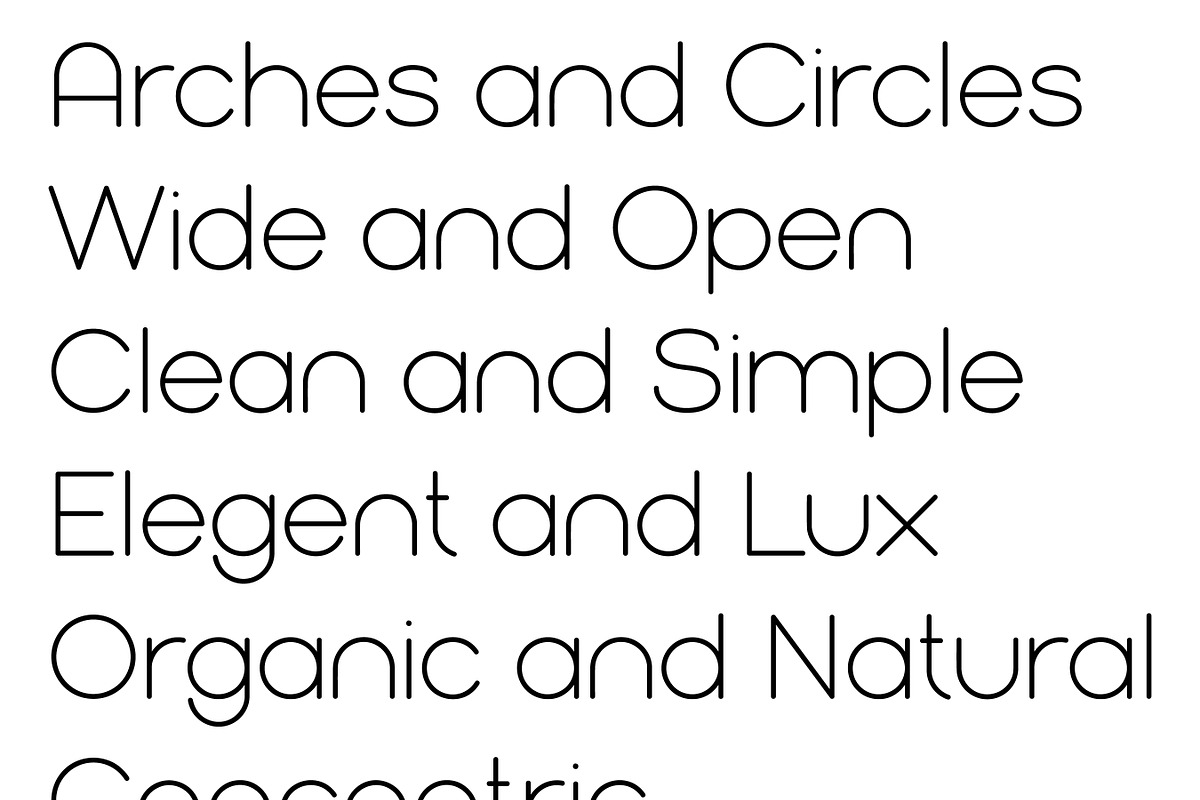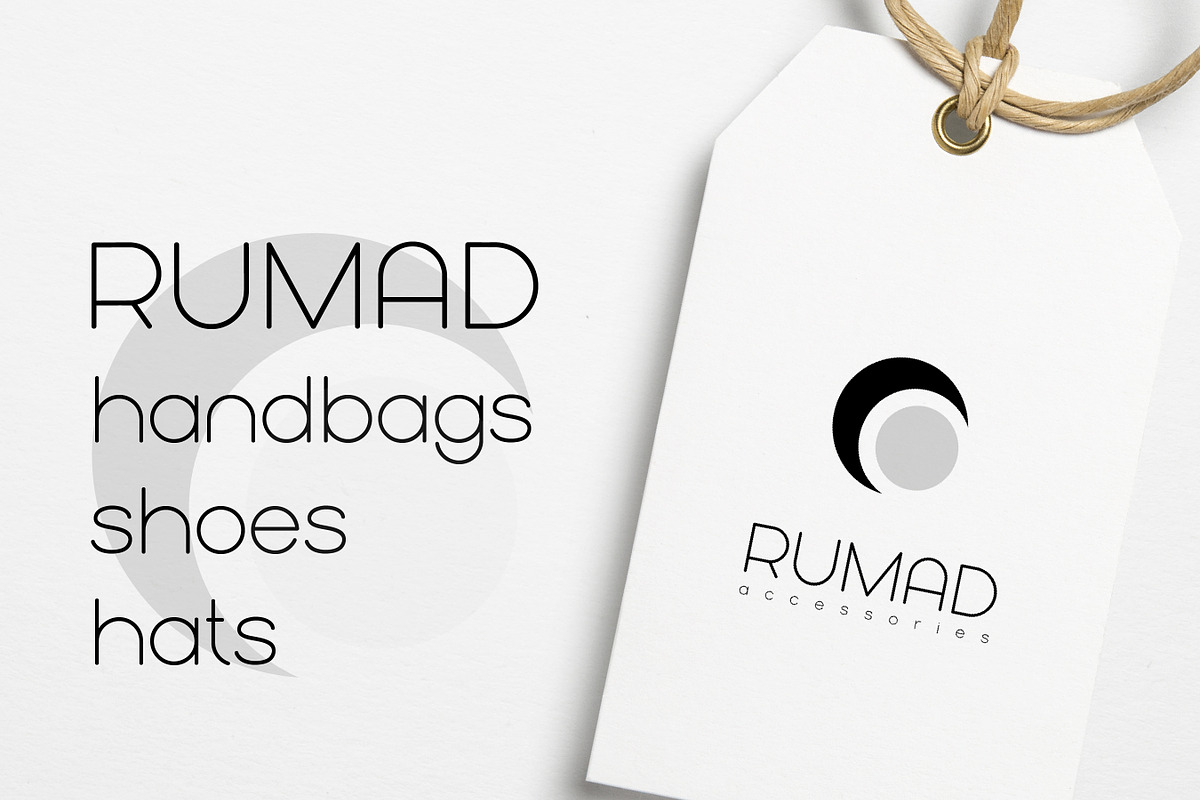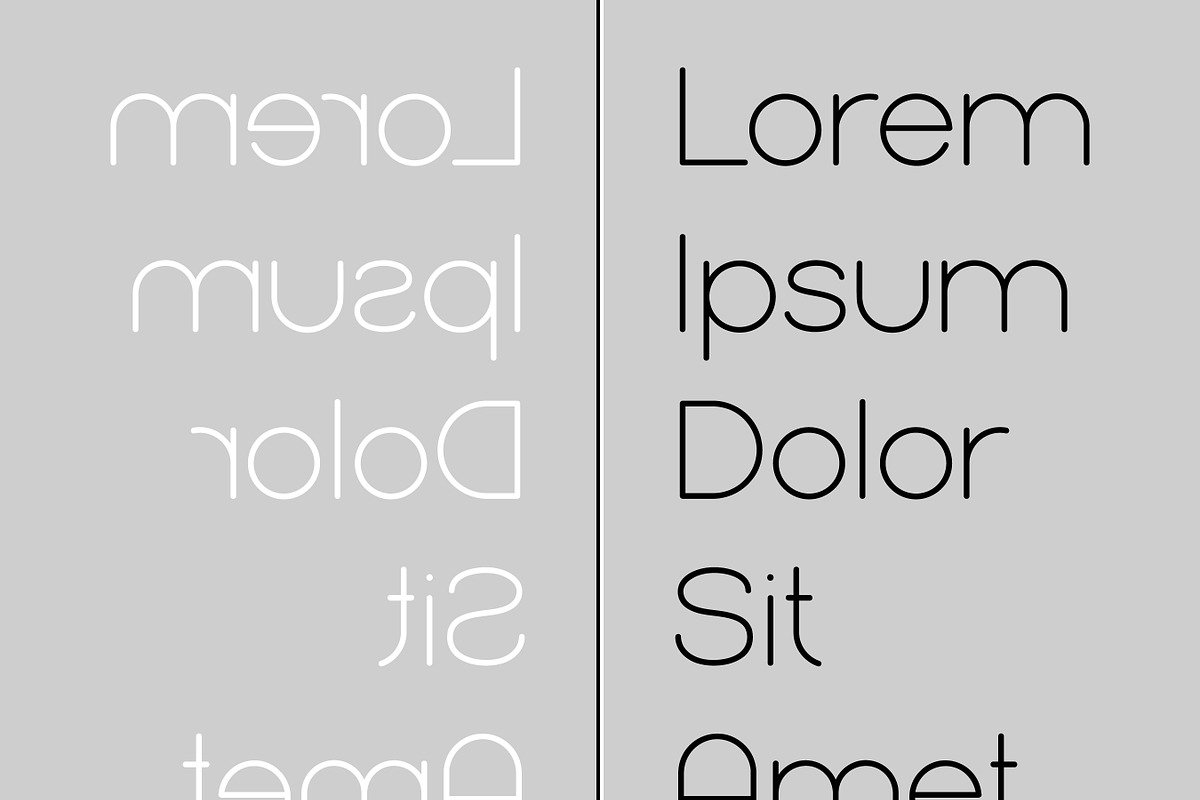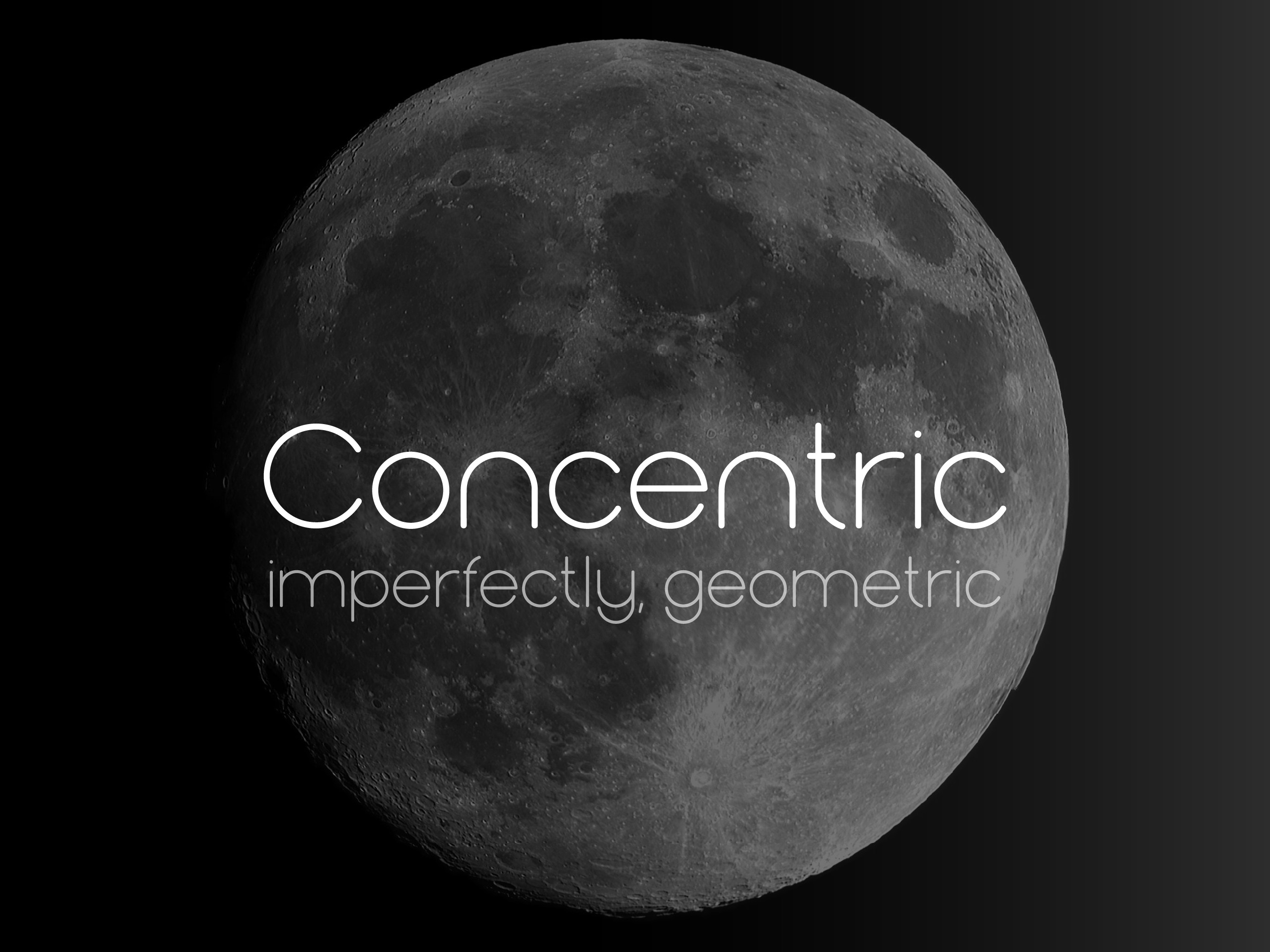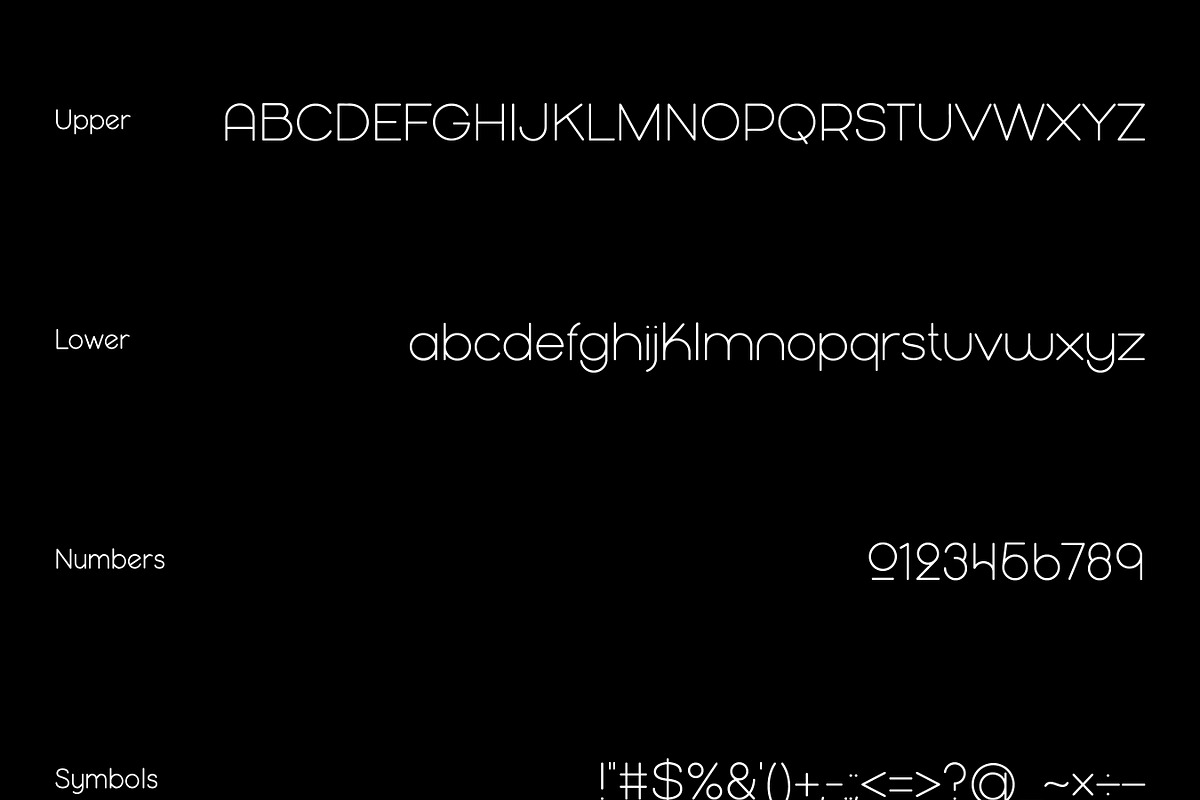
Concentric Font
Concentric has clean lines and beautiful arches. This font is clean and perfect for an elegent branding for a cosmetic or fashion company. While it has geometric lines, this font was made by hand for an organic touch.